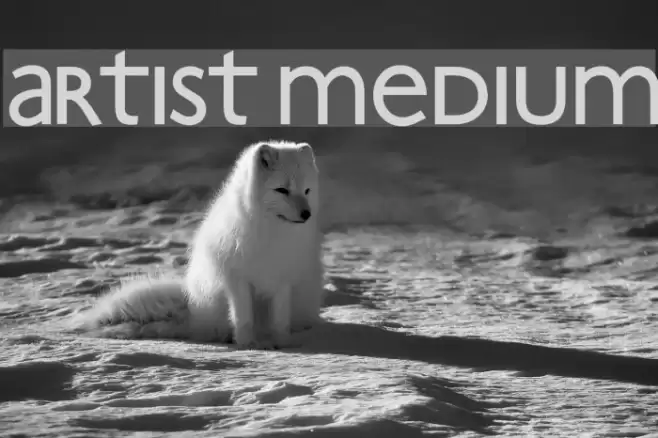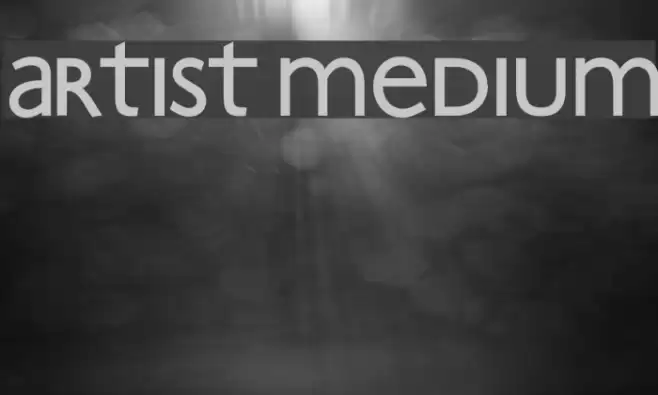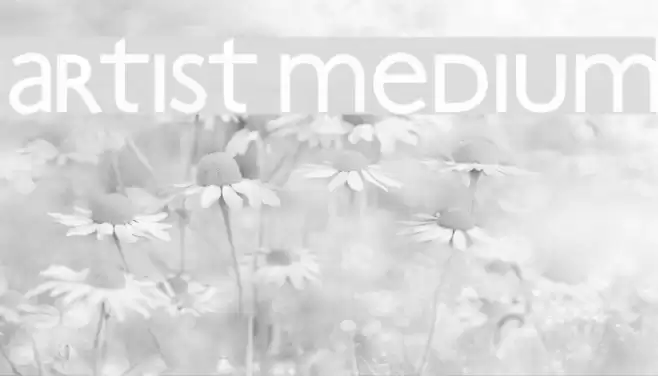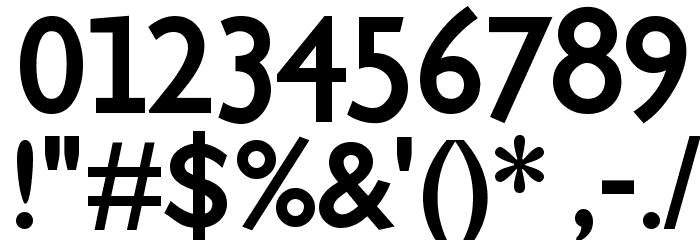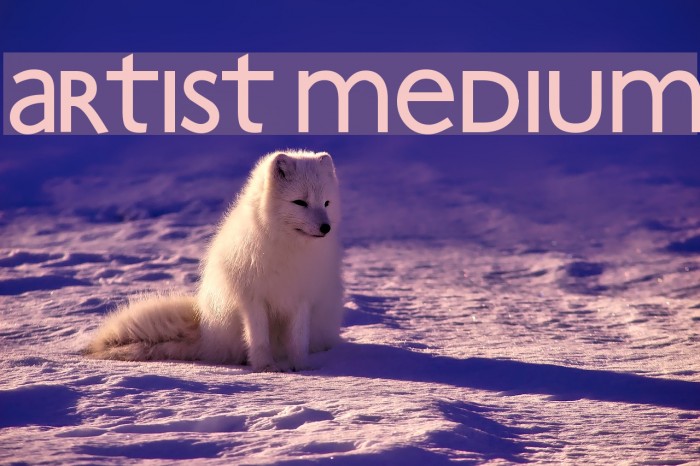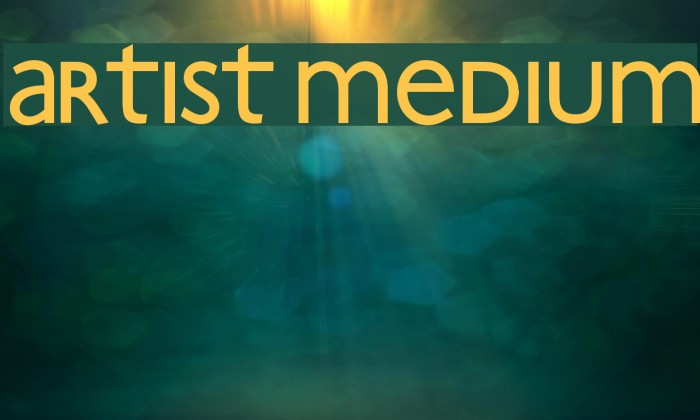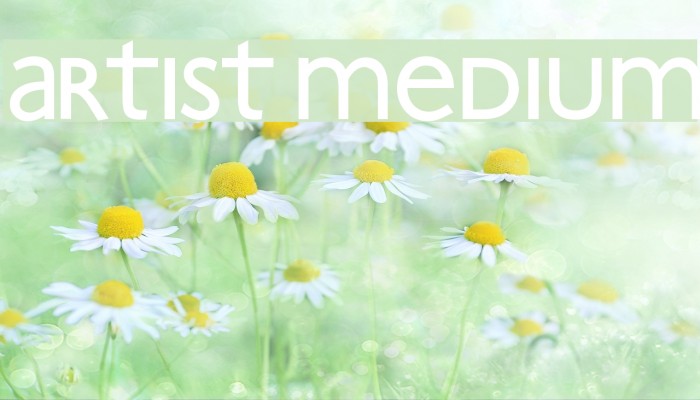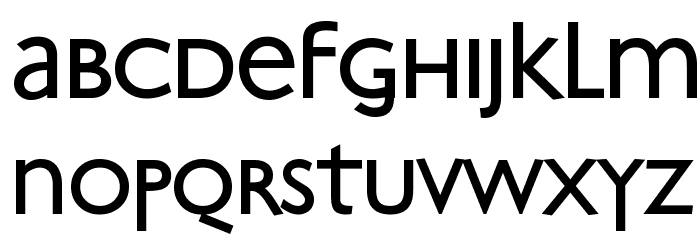
Artist Medium Font
Artist Medium Description
This font features a modern, geometric design with clean lines and a bold presence. The characters are crafted with uniform stroke widths, giving it a balanced and harmonious appearance. The uppercase letters are slightly taller than the lowercase, providing a distinct hierarchy. The numerals are clear and easy to read, making them suitable for various applications. Special characters are well-integrated, maintaining the overall aesthetic. The font's simplicity and clarity make it versatile for both digital and print media.
A modern, geometric font with clean lines and uniform stroke widths from Uncategorized fonts.